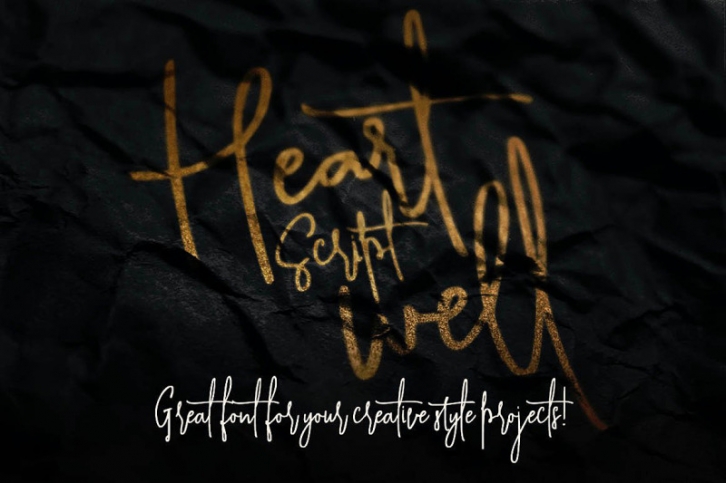
Heartwell Script Font Download
Crazy dancing baseline and handwritten style script font for your new projects. With multi language support and lot of stylistic alternates & swashes. Enjoy ;)